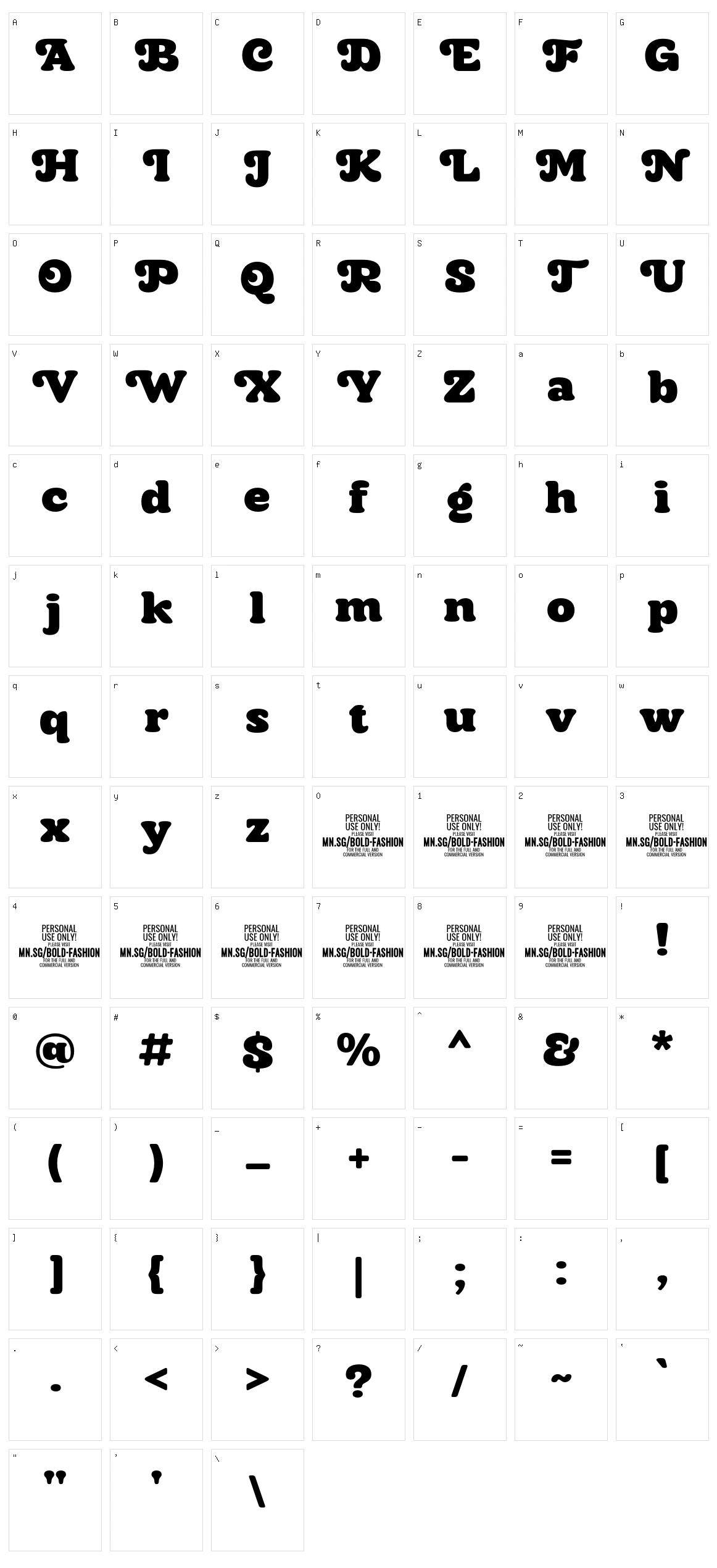
Bold Fashion is a heavy slab-serif font of the disco era.
Its funk-style design, coupled with soft, rounded serifs, embodies the soul of retro, bringing forth memories of neon lights, bell-bottoms, and roller discos. Each letter is profoundly heavy, yet they prance with a bouncy, comfy rhythm, akin to catchy 70s beats.
The swashes adorning the uppercase letters add flair, reminiscent of iconic burger joint signs and groovy vinyl covers. Despite its fun, funky nature, there's a clear professionalism to the font, allowing it to strut its stuff in both playful and serious settings.
The Bold Fashion family consists of 16 styles, such as Swash, Clean, Light, Black, Regular and Italic.
The font is built with advanced OpenType functionality and has a guaranteed top-notch quality, containing stylistic and contextual alternates, ligatures, and more features; all to give you full control and customizability. It has extensive lingual support, covering all Latin-based languages, from Northern Europe to South Africa, from America to South-East Asia. It contains all characters and symbols you'll ever need, including all punctuation and numbers.
Crafted with precision by Mans Greback, Bold Fashion is more than just type – it's a typographic king of an era. Through the typeface, Greback pays homage to the past, providing creatives with a tool that reimagines the spirit of the 70s for contemporary designs.